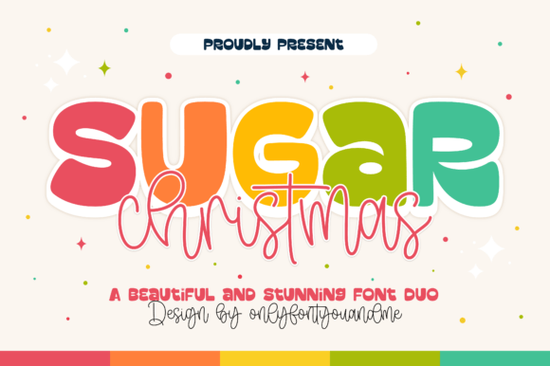
If you’re looking for a font that feels like holiday cheer in letterform, the Sugar Christmas Duo Font is worth a closer look. It’s not just another seasonal typeface it’s built for warmth, whimsy, and that handmade holiday vibe people love on cards, gift tags, and shop branding. The chunky display letters feel like candy canes and gingerbread houses, while the paired script dances with personality, making your text feel alive without being overwhelming.
What makes this font duo stand out for holiday projects?
The real charm of Sugar Christmas lies in how well the two fonts work together. You’ve got one bold, bubbly display style think rounded edges, soft curves, and a friendly presence that grabs attention without shouting. Then there’s the companion script: tall, bouncy, and full of smooth loops that give off cozy handwritten energy. This isn’t stiff calligraphy or overly formal lettering. It’s relaxed, joyful, and perfect for things like:
- Holiday greeting cards and gift wrap labels
- Print-on-demand mugs, totes, and T-shirts
- Small business signage or social media banners
- Craft project titles (think scrapbooks, ornaments, or DIY calendars)
If you’ve ever used something like Dustero for vintage flair or Shark Teeth for edgy contrast, you’ll appreciate how Sugar Christmas fills a totally different niche playful but polished, festive but not fussy.
How does it compare to other display fonts for seasonal use?
Fonts like Frontier Outlaw or Preppy Chunky have their own strengths rugged western energy or modern minimalism but they don’t carry the same sweet, childlike joy that Sugar Christmas delivers. The rounded forms here feel intentionally “treat-like,” as if each letter was dipped in icing. That’s rare. Most holiday fonts either go ultra-traditional (think Victorian scripts) or cartoonish. This one sits comfortably in between professional enough for client work, fun enough for personal crafts.
Designers who sell holiday-themed POD items often struggle to find fonts that feel unique but still read clearly at small sizes. Sugar Christmas handles this well. The display font stays legible even when scaled down for stickers or tags, and the script maintains its flow without turning into a tangled mess. Test it at 18pt on a mock mug design you’ll see what we mean.
Who should really consider downloading this?
This isn’t just for graphic designers. If you run a small Etsy shop selling holiday decor, bake seasonal treats with custom packaging, or host craft nights where personalized gift tags are a hit this font will save you time and elevate your aesthetic. Teachers creating classroom holiday posters? Perfect. Event planners designing cheerful invites? Also great.
One thing to note: because it’s a duo, you get flexibility. Use the display font for headlines (“Merry & Bright!”) and the script for supporting text (“Handmade with love, just for you”). Or flip them let the script headline draw the eye, and use the chunky caps for dates or locations. Either way, you’re getting two distinct personalities that complement rather than compete.
Any tips for pairing it with other design elements?
Keep your color palette warm and sugary creams, reds, mint greens, gold foil accents. Avoid high-contrast neon combos; they’ll fight the font’s gentle vibe. For backgrounds, try subtle textures like kraft paper, watercolor washes, or soft glitter overlays. And if you’re layering illustrations, stick to simple line art or flat icons nothing too detailed that’ll clash with the font’s bubbly rhythm.
Also, don’t forget to check spacing. The script has generous loops, so you might want to tighten tracking slightly in longer phrases. The display font can handle tighter kerning too, especially in all-caps settings. A quick preview in your design software before finalizing goes a long way.
Quick checklist before you start using Sugar Christmas Duo Font:
- Test readability at your intended output size especially for small-format prints.
- Pair wisely avoid competing decorative elements; let the font shine.
- Use both fonts don’t default to just one; their synergy is the magic.
- Check licensing make sure your plan covers commercial use if you’re selling products.
- Save presets once you nail a combo (size, color, tracking), save it as a style for reuse.